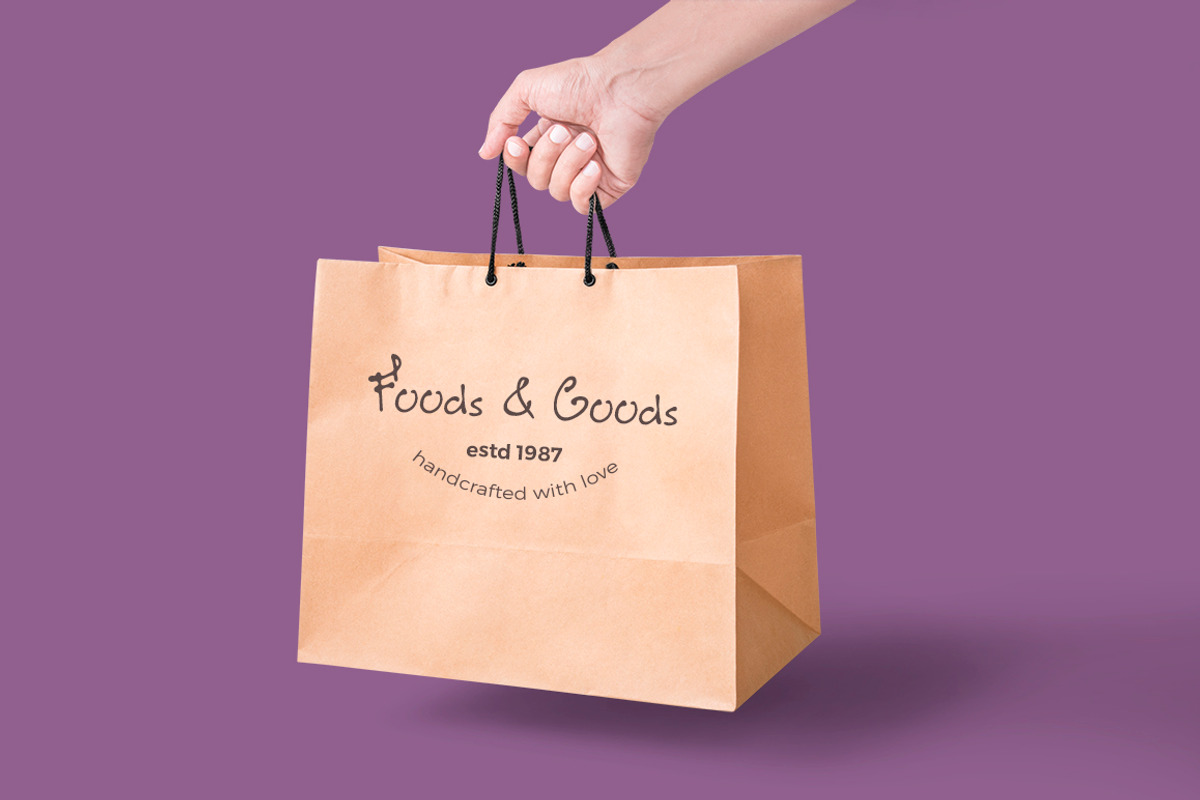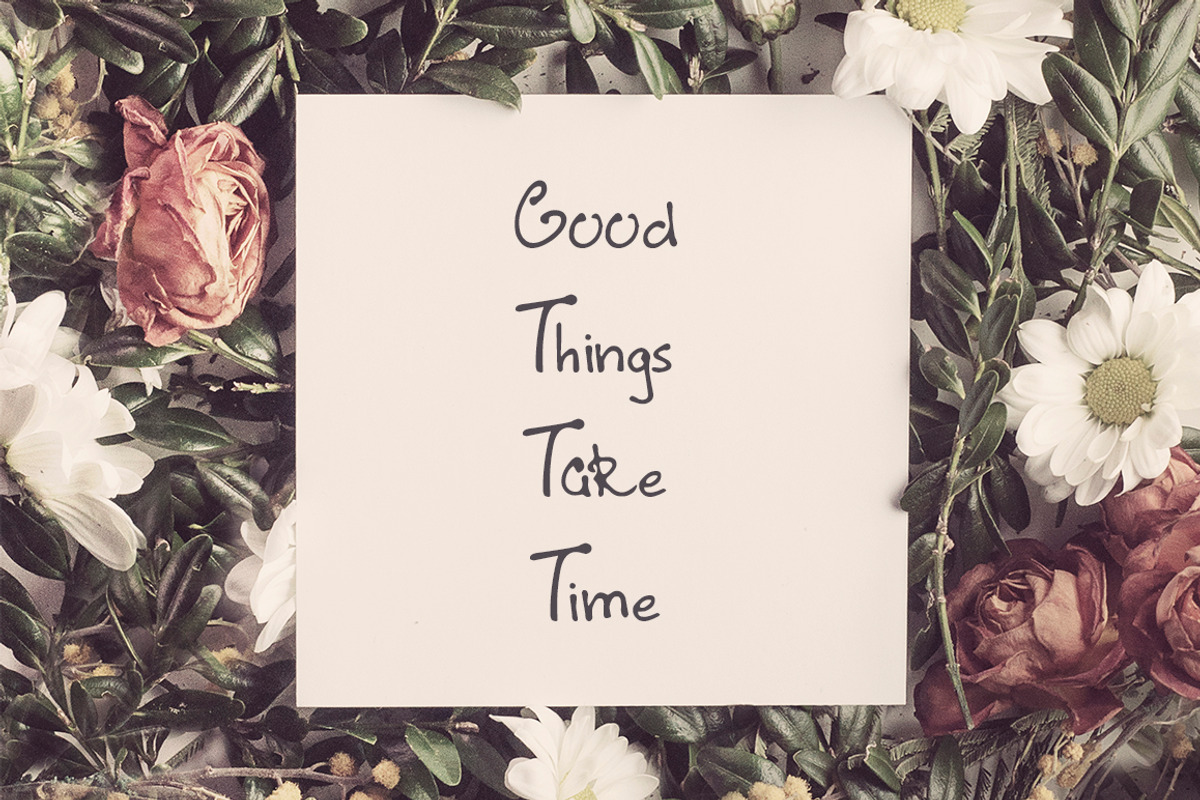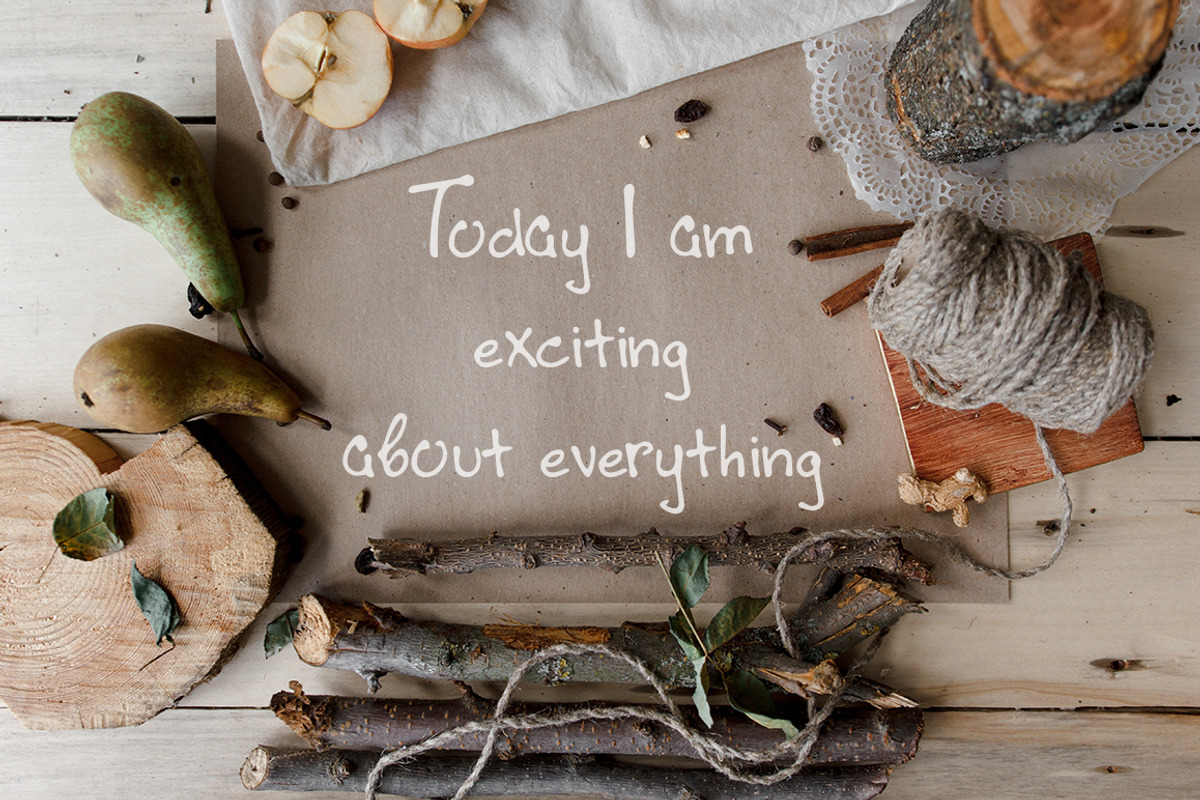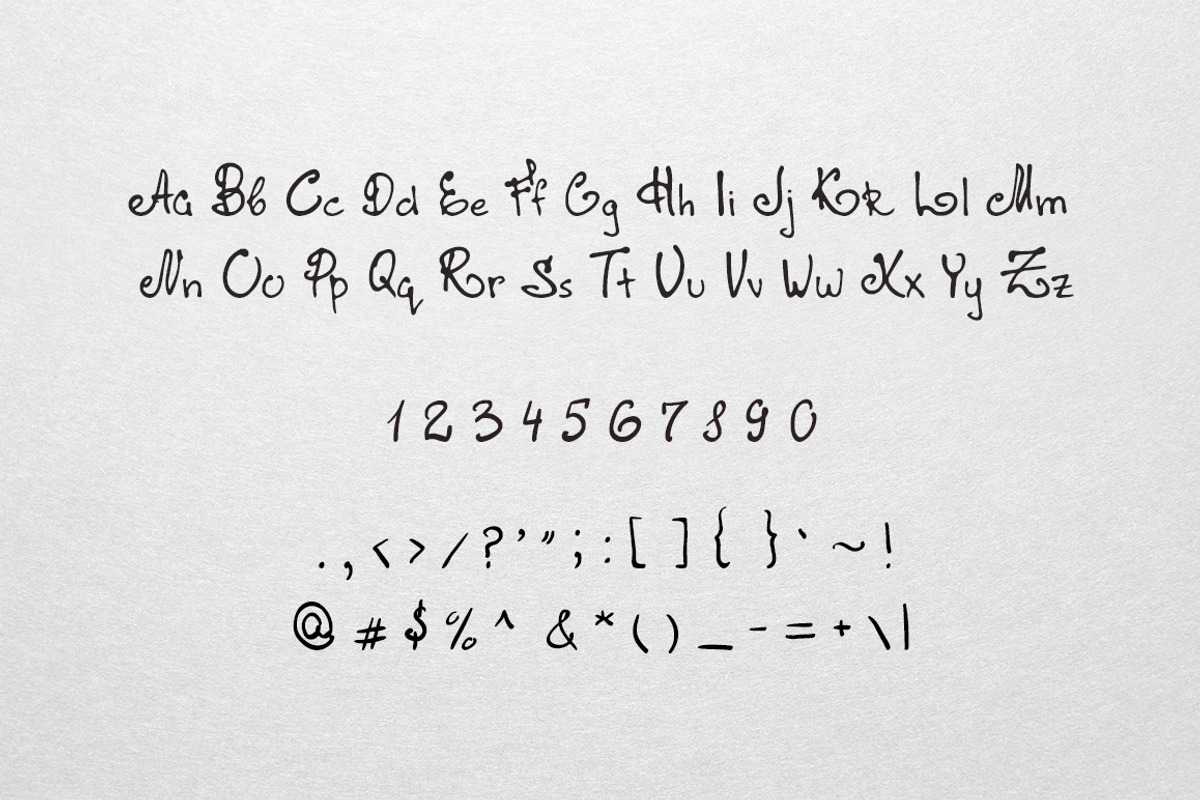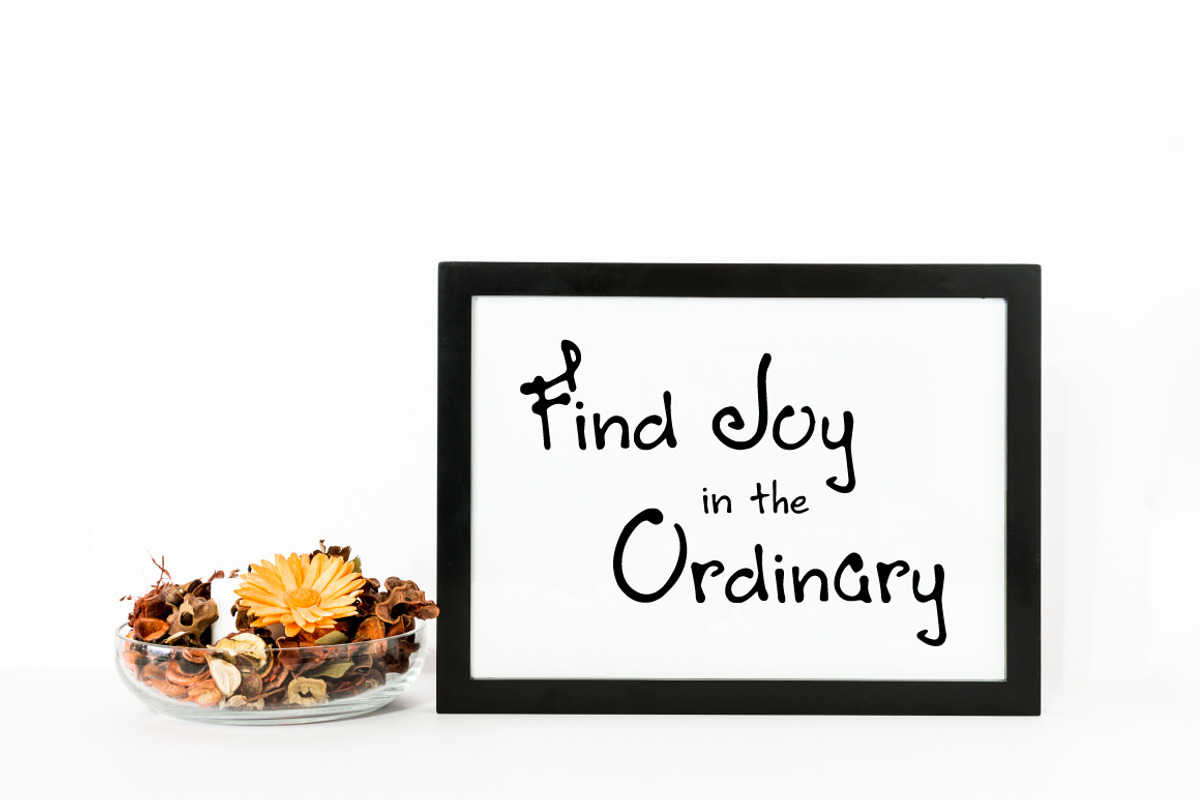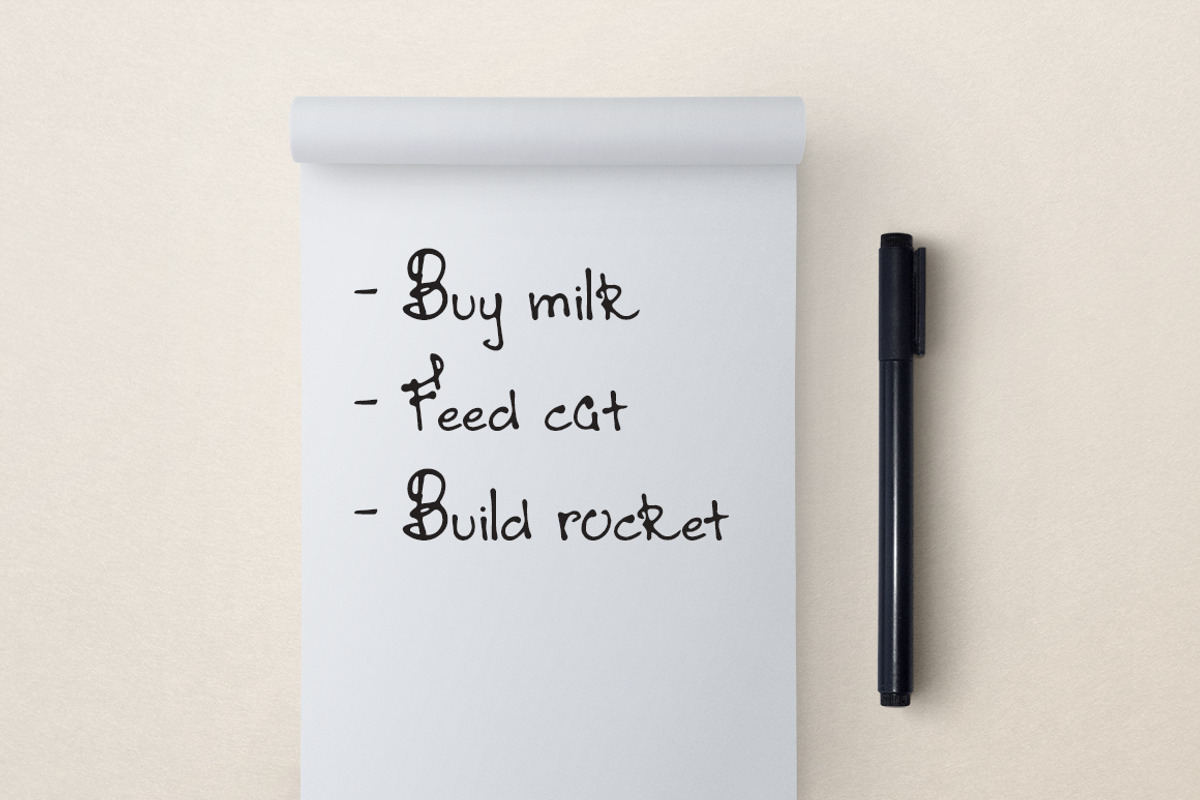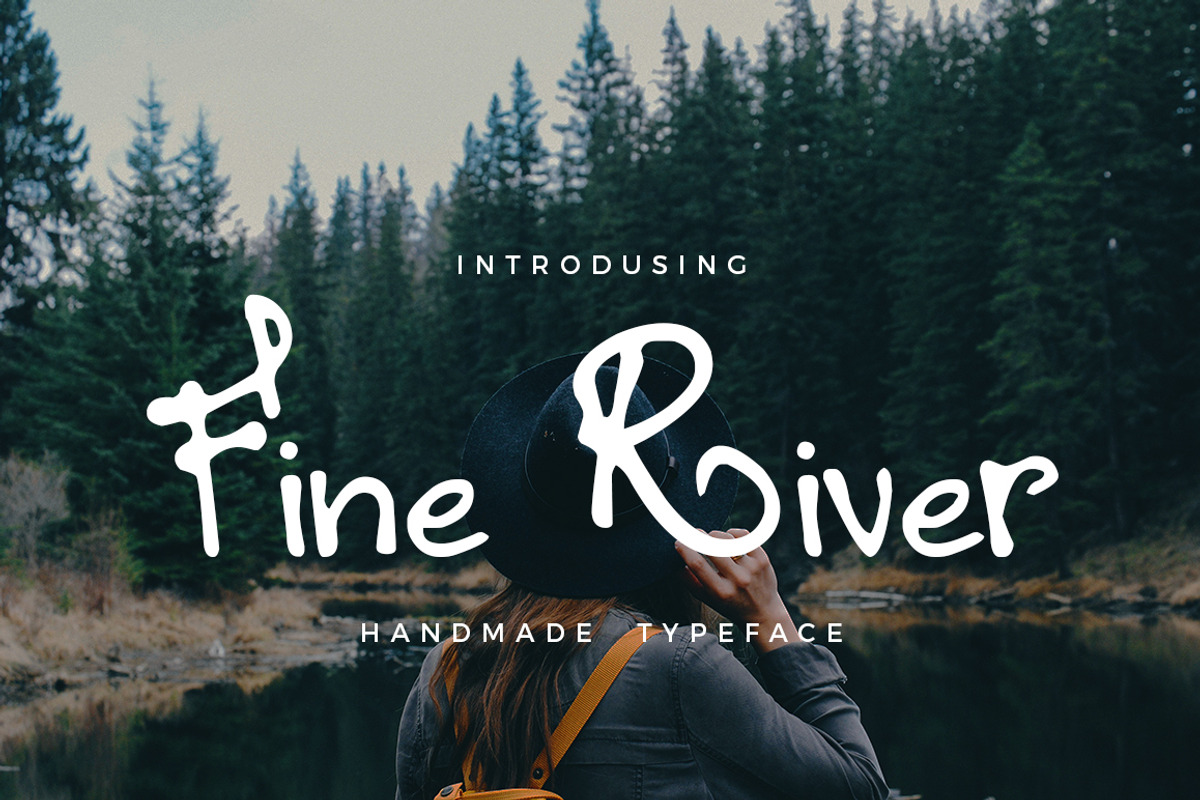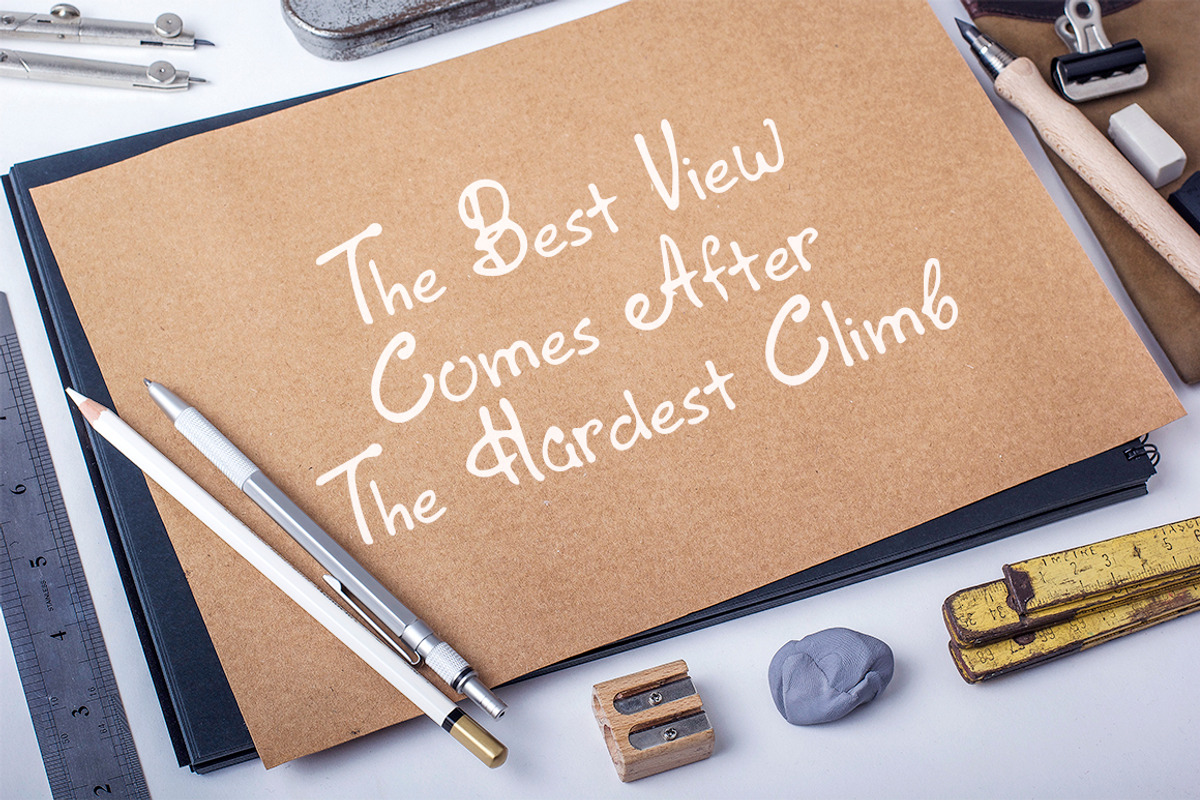
Fine River Hand Drawn Typeface
Fine River Hand Drawn Typeface by Magda is a font selected for branding, posters, packaging, typography.
Why Fine River Hand Drawn Typeface is worth a look
Fine River Hand Drawn Typeface by Magda fits naturally into Branding, posters, packaging, typography.